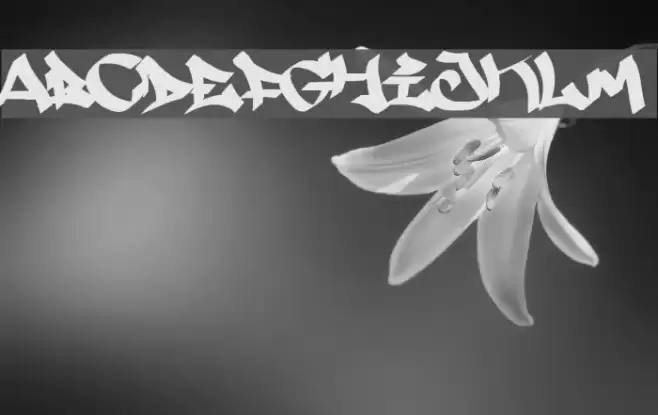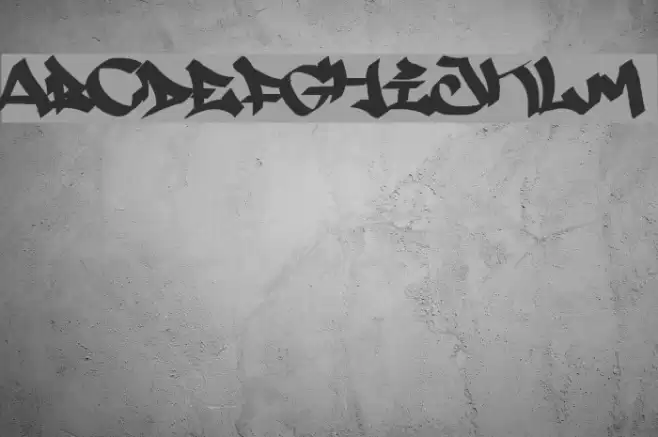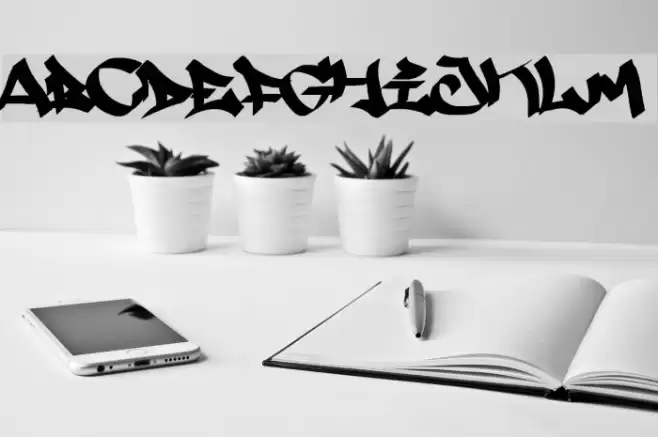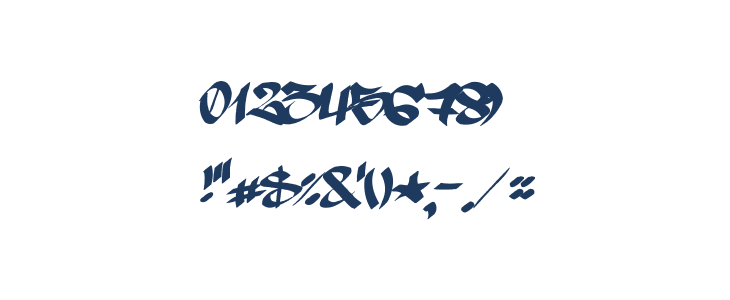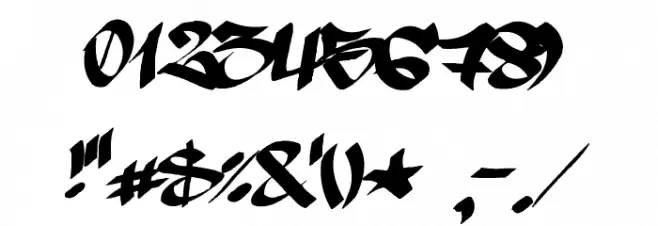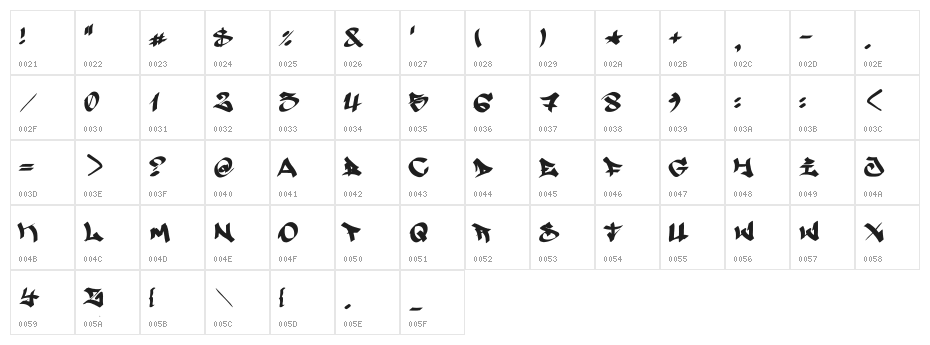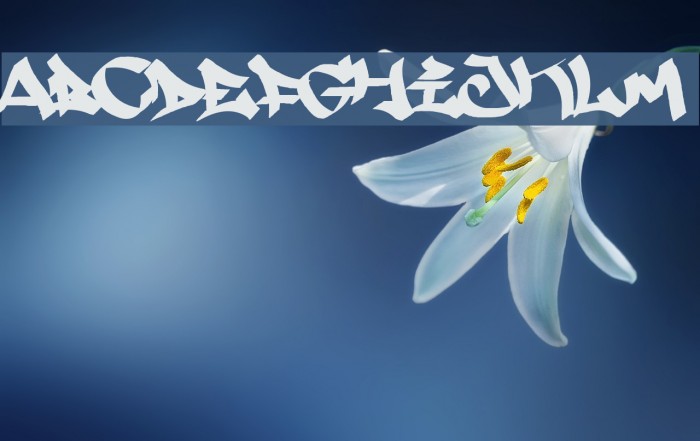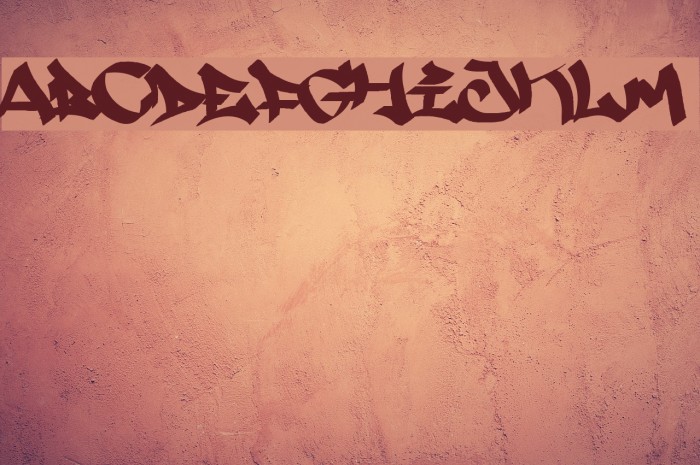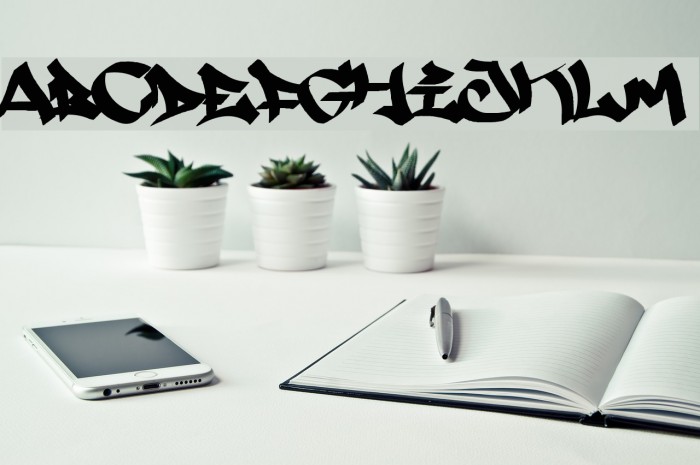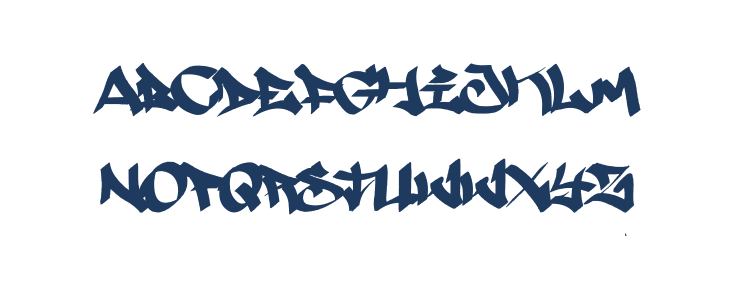
Searfont Font
Searfont Description
This font exhibits a bold, graffiti-inspired style with sharp, angular edges and a dynamic flow. The characters are heavily stylized, featuring exaggerated curves and points that give them a rebellious and energetic feel. The uppercase and lowercase letters maintain a consistent design, while the numbers and special characters integrate seamlessly with the overall aesthetic. The font's thick strokes and high contrast make it highly visible and impactful, ideal for making strong visual statements. Its unique design is reminiscent of urban street art, capturing a sense of movement and creativity.
A bold, graffiti-inspired font with sharp, angular edges and high contrast from Graffiti fonts.
- Proposed Projects: This font is perfect for urban-themed designs, streetwear branding, music album covers, event posters, and any project aiming to capture a rebellious or artistic vibe.
- Character Spacing: Tight
- Overall Style: Modern, Urban, Artistic